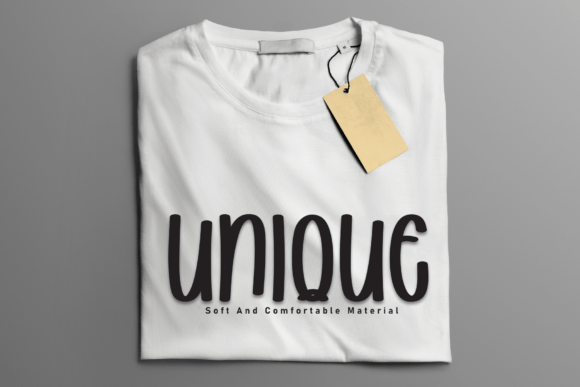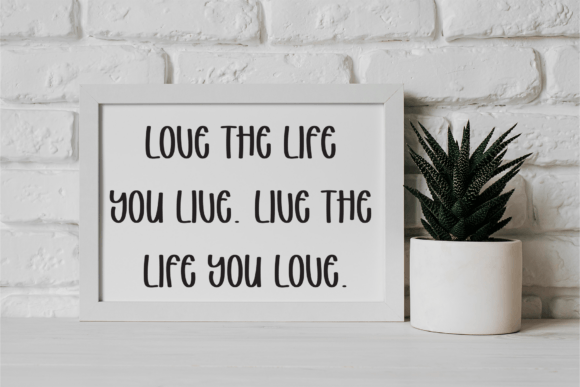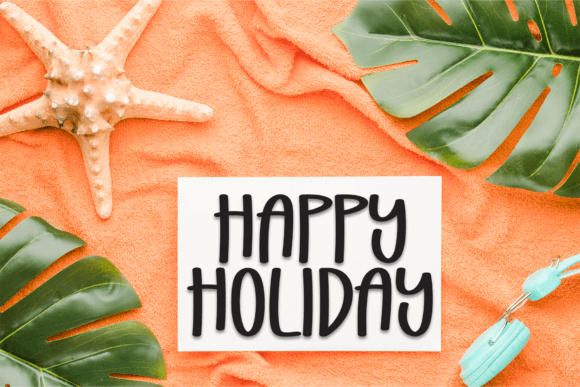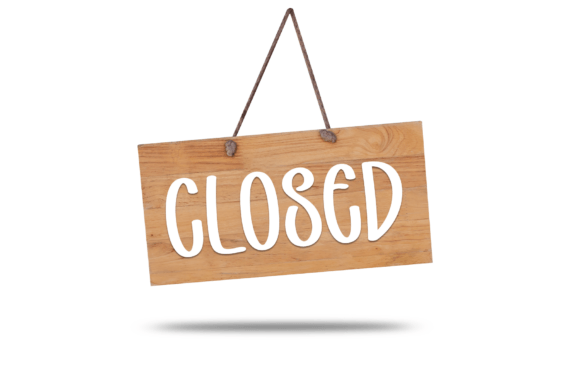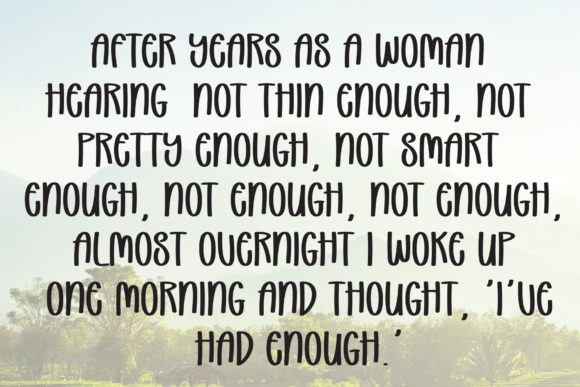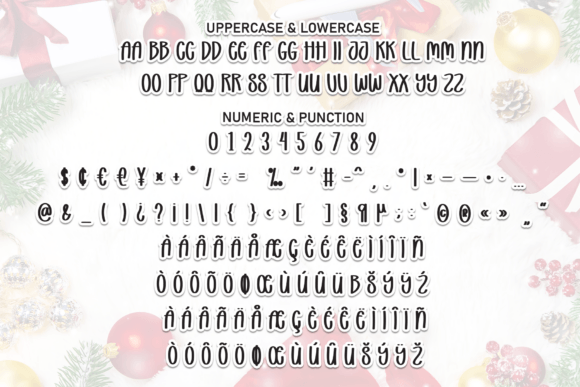
Introduction to Birthday Christmas Font
Birthday Christmas is a cheerful handwritten font that looks like it was created with a marker.
Its playful style is perfect for celebrations, making it great for birthday and Christmas cards, invitations, and festive decorations .